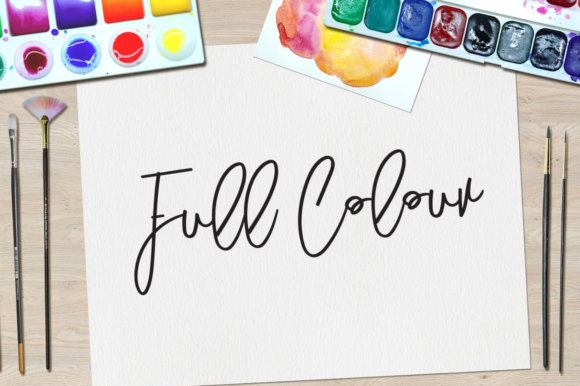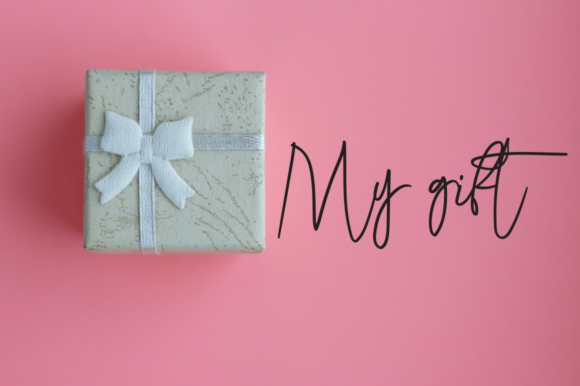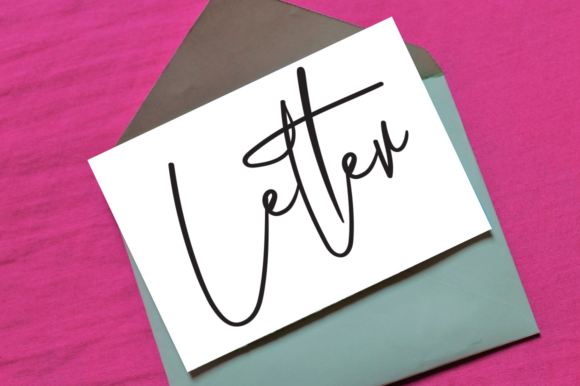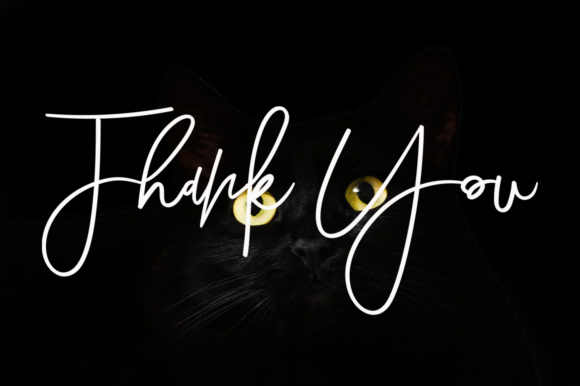
Introduction to Little Farmhouse Font
Little farmhouse is a delicate and genuine handwritten font.
Masterfully designed to look original and natural, this font will help your creations stand out and impress .
Key Features of Little Farmhouse Font
Why Choose Little Farmhouse Font?
Little Farmhouse Font offers exceptional quality and versatility, making it a valuable addition to your design toolkit. Whether you’re creating for personal projects or commercial use, Little Farmhouse Font delivers professional results.